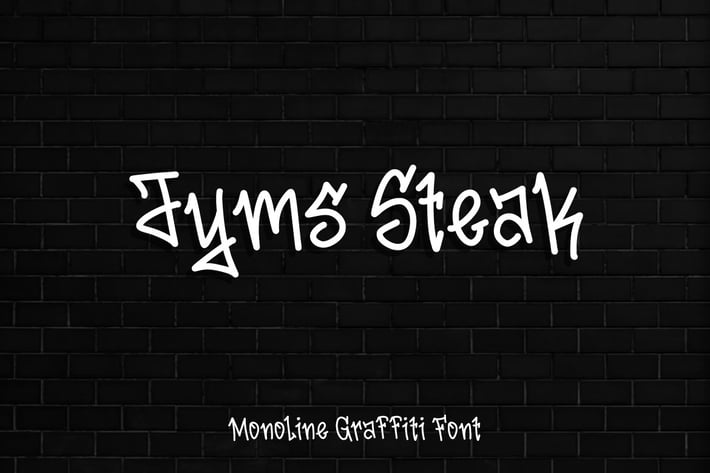
Jyms Steak - Monoline Graffiti Font
Hello! JYMS STEAK is a modern monoline graffiti font.
Jyms Steak can be used in any works such as flyer, book title, advertisement, social media content, logo and many more.